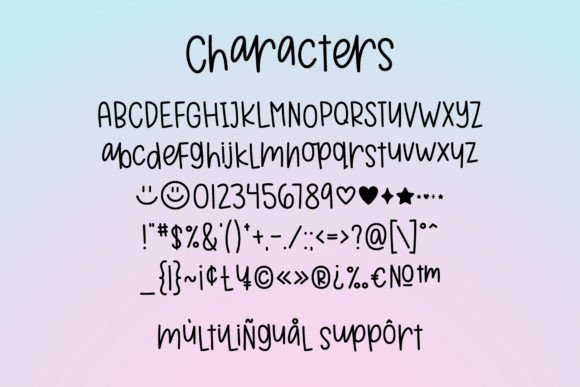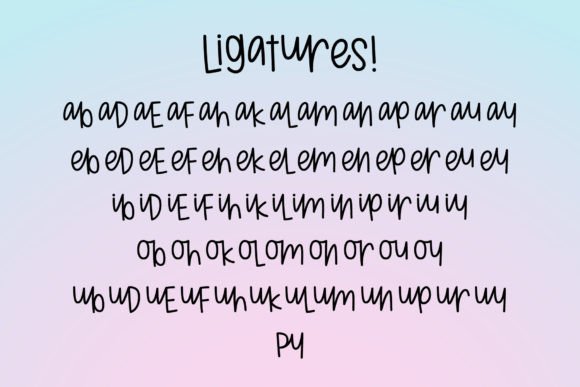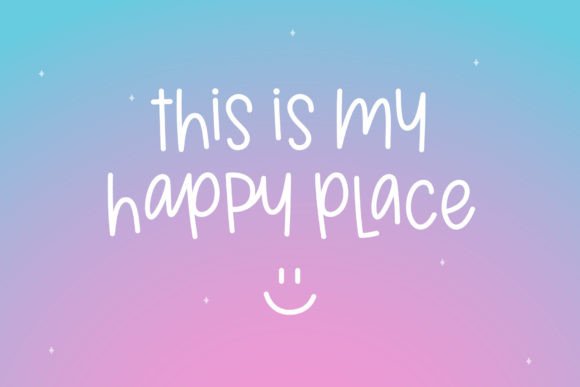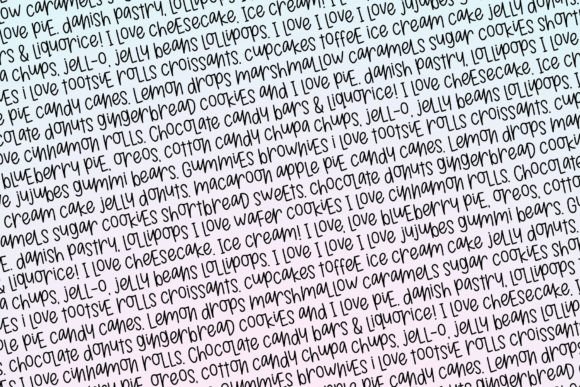
California Dreamin’ Font
Transport yourself into a world of playful creativity with ‘California Dreamin’. This irresistibly charming font is characterized by dynamic bouncy letterforms and an abundance of alternate connected characters for a unique look like no other font! Experience artistic versatility like no other with California Dreamin’ – the perfect choice for those desirous of injecting a dose of whimsical charm into their work.